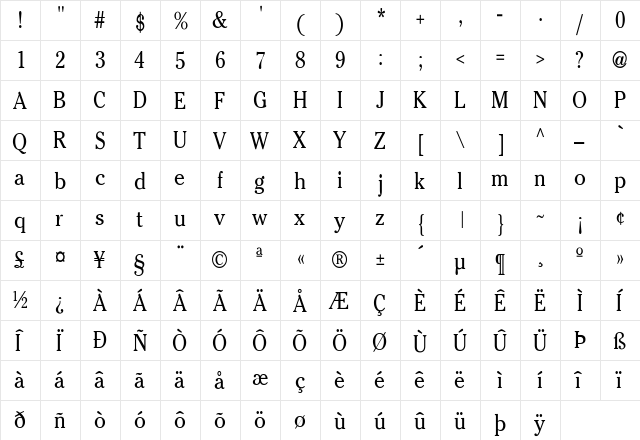
CheltenhamCnd-Normal Regular Font Preview
CheltenhamCnd-Normal Regular
CheltenhamCnd-Normal Regular Font Details
Design Context for CheltenhamCnd-Normal Typeface
CheltenhamCnd-Normal takes a measured approach to typography — its balanced proportions and neutral character make it a reliable workhorse for both digital and print work.